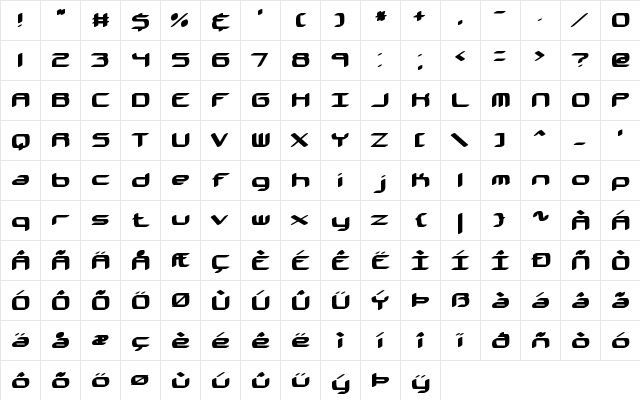
Kinkaid BRK Normal
| Foundry | ƎIGMA FONTS |
| Designer | ƎIGMA FONTS - Brian Kent |
Design Context for Kinkaid BRK Typeface
Kinkaid BRK is a composed and adaptable typeface that performs quietly and consistently across a wide range of design contexts.